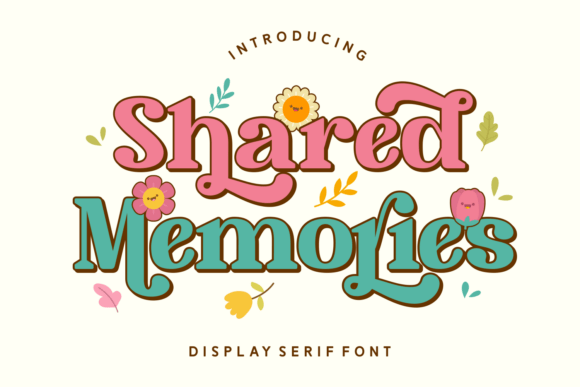
Shared Memories Font for Web Design
Testing Shared Memories in a hero section of a boutique online store, I was immediately drawn to its elegant curves and romantic flair. This display font feels like a whisper of nostalgia, perfect for creating visual moments that resonate with users.
Shared Memories for Wedding Invitations and Elegant Branding
As a web designer working on a wedding-related brand, I found that Shared Memories adds a touch of sophistication to headers and logos. Its soft, flowing strokes make it ideal for branding that emphasizes love, connection, and timeless beauty. The font’s personality aligns well with the emotional tone of a wedding website or digital invitation.
When used in a header, Shared Memories commands attention without overwhelming the design. It pairs beautifully with minimalist layouts, allowing the font to stand out while maintaining a clean aesthetic. For a luxury brand, this font can elevate the entire user experience by reinforcing the message of exclusivity and care.
Shared Memories in Digital Ads and Social Media Graphics
In a recent campaign for a lifestyle blog, I experimented with Shared Memories on social media banners and ad headlines. The font’s romantic air made it an excellent choice for promoting content about relationships, self-love, and personal growth. Its readability on smaller screens was surprisingly good, especially when paired with a bold sans serif for body text.
On mobile devices, the font holds up well, but it’s important to keep line lengths short and spacing generous. Using it as a decorative accent in call-to-action buttons added a unique touch without sacrificing usability. The font’s versatility makes it a strong candidate for both large and small digital assets.
Shared Memories for Creative Portfolios and Coaching Websites
For a creative portfolio site, I used Shared Memories in the main headline and section titles. The font’s character brought a sense of artistry and intentionality to the layout, making the site feel more personal and engaging. It worked particularly well when placed over image backgrounds, where its delicate details stood out against solid colors or textures.
On a coaching website, the font helped establish a warm, inviting tone. It felt right for a homepage that aims to connect with users on an emotional level. When paired with a simple, modern sans serif for body copy, the contrast created a balanced and professional look that supported the brand’s message.
Shared Memories in Landing Pages and Course Sales Pages
When designing a landing page for an online course, I tested Shared Memories in the headline and subheadings. The font’s elegance complemented the course’s theme of personal development and self-improvement. It gave the page a polished, premium feel that aligned with the course’s value proposition.
However, I noticed that the font’s thin strokes could be harder to read in certain contexts, such as on dark backgrounds or in small button sizes. To address this, I used a bolder weight for CTAs and kept the font reserved for larger, more prominent elements. This approach ensured clarity without sacrificing style.
Shared Memories for Online Store Banners and Product Pages
For an online store selling handmade jewelry, I incorporated Shared Memories into product banners and category headings. The font’s romantic vibe matched the brand’s aesthetic perfectly, helping to create a cohesive and memorable shopping experience. It worked especially well in banners that featured images of the products, where the font’s curves echoed the shapes of the designs.
On product pages, I used the font sparingly—mainly for the product title and a few key phrases. This allowed the font to shine without distracting from the essential information. The result was a visually appealing and easy-to-navigate layout that encouraged engagement and conversions.
Shared Memories in Blog Headers and Editorial Layouts
When redesigning a blog, I applied Shared Memories to the header and section titles. The font added a fresh, modern touch that differentiated the blog from others in the same niche. Its readability on long-form content was acceptable, especially when used in combination with a complementary serif font for body text.
The font also proved useful for creating eye-catching headlines that drew readers in. It worked well in editorial layouts where the goal was to evoke emotion and encourage deeper reading. However, I avoided using it for body paragraphs, as the font’s decorative nature could reduce legibility over extended reading sessions.
Shared Memories for Campaign Landing Pages and Promotional Content
For a Valentine’s Day campaign, I used Shared Memories in the main headline and supporting text. The font’s romantic air was a perfect fit for the theme, and it helped create a sense of urgency and excitement around the promotion. It felt right for a campaign that aimed to connect with users on a personal level.
On a promotional landing page, the font served as a strong visual anchor, guiding users through the content with its elegant presence. It paired well with bold color contrasts and dynamic imagery, making the page feel vibrant and engaging. The font’s ability to convey emotion made it an effective tool for storytelling and persuasion.